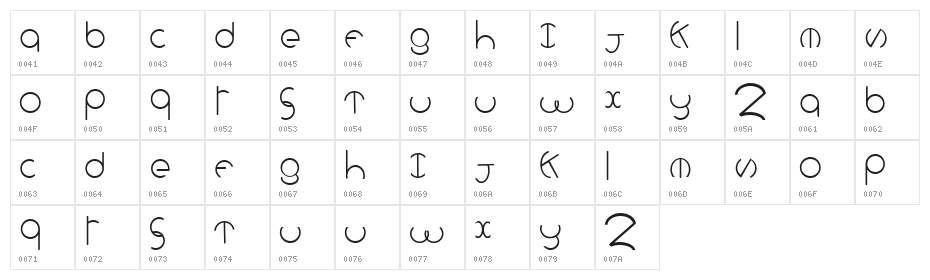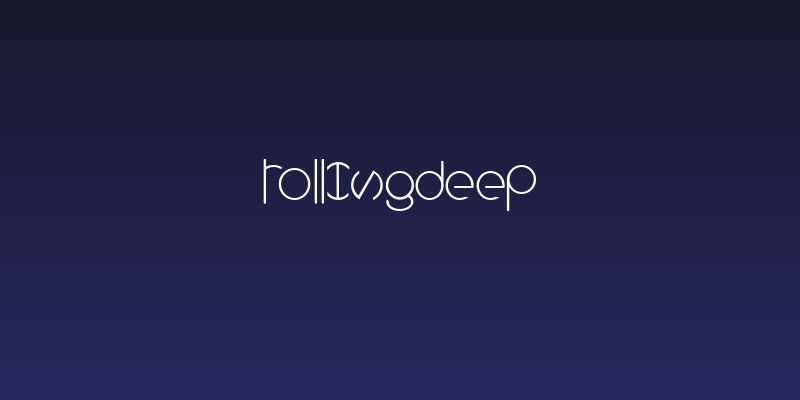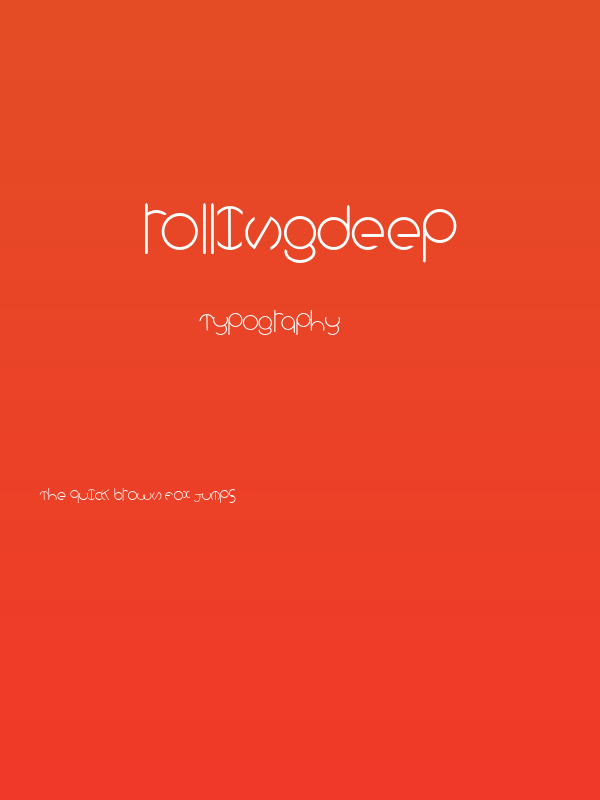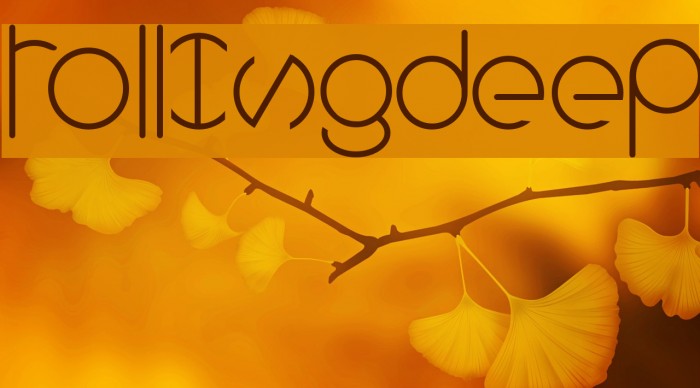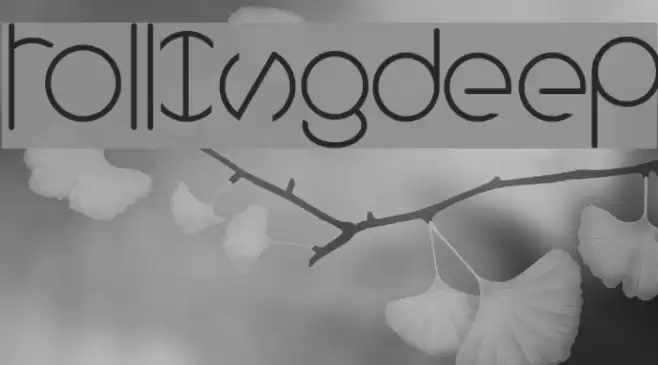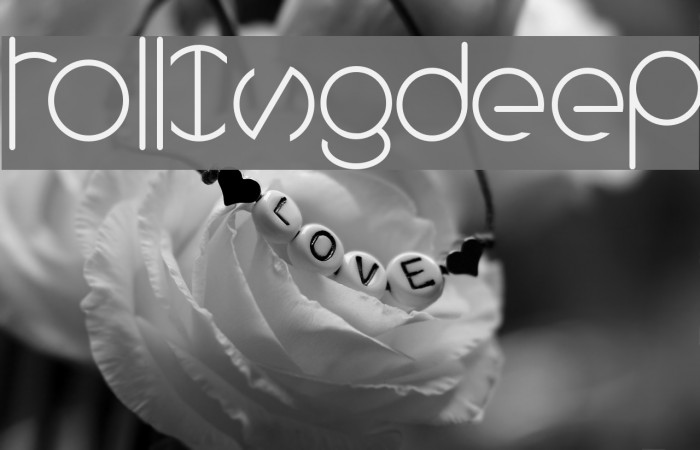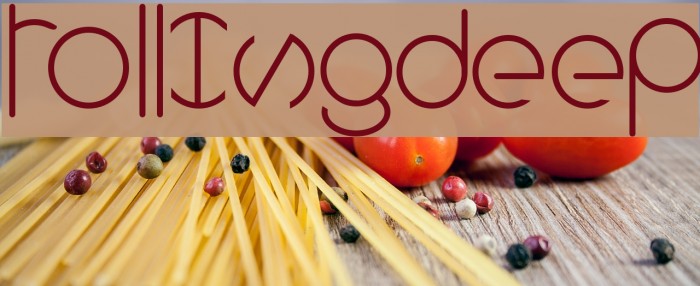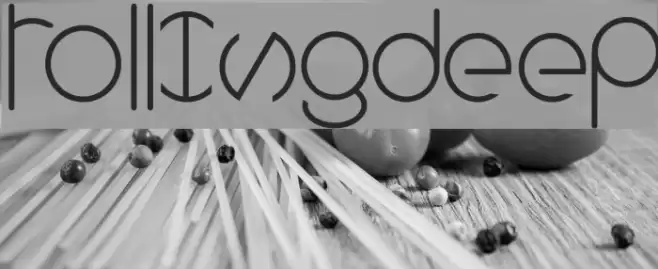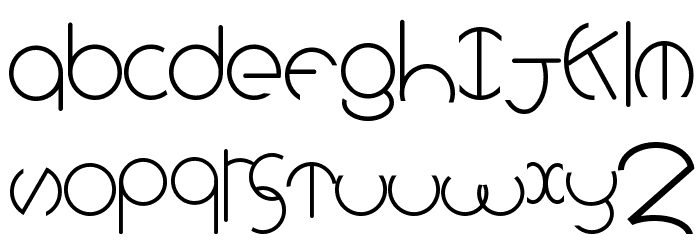
rollingdeep Font
rollingdeep Description
This font features a unique and artistic design with a modern twist. The characters are crafted with a combination of smooth curves and sharp angles, creating a distinctive and eye-catching appearance. The uppercase and lowercase letters maintain a consistent style, with some characters incorporating playful loops and unexpected turns. The numbers and special characters follow the same design ethos, ensuring a cohesive look across all glyphs. This font is perfect for projects that require a touch of creativity and modern flair.
| Use Case | Logos, Posters, Creative projects |
| Proposed Projects | Ideal for branding, creative posters, modern art projects, and unique logo designs. |